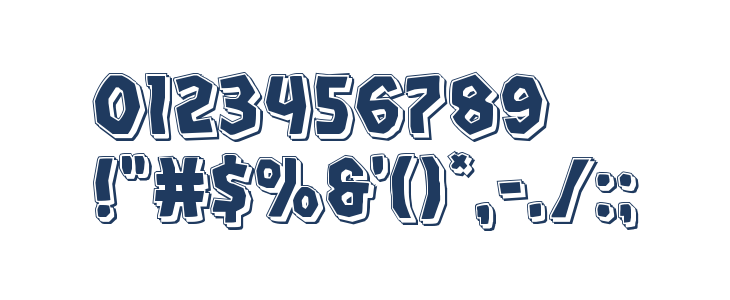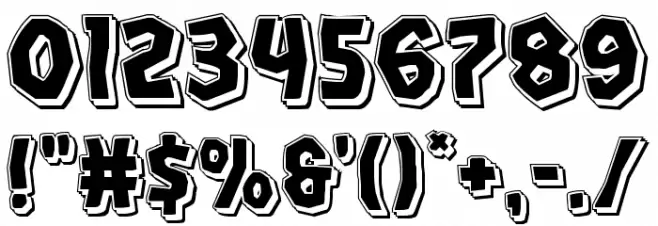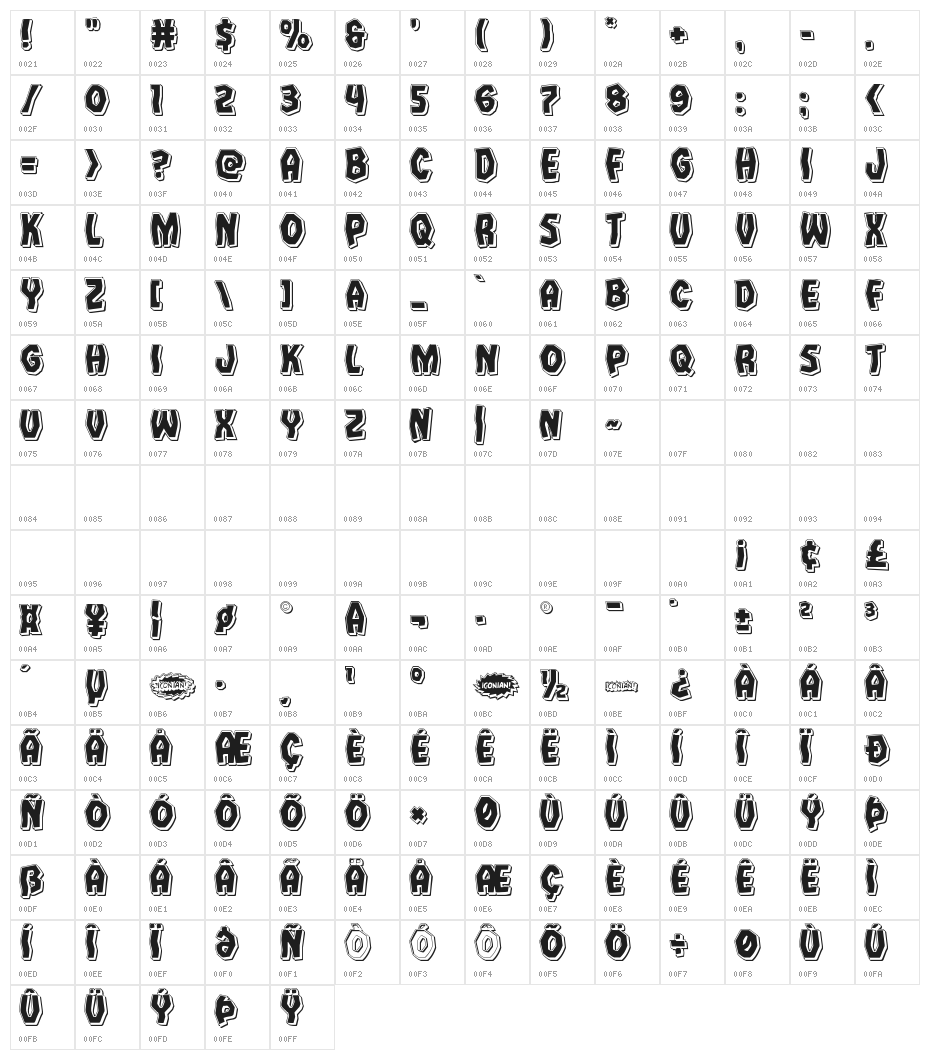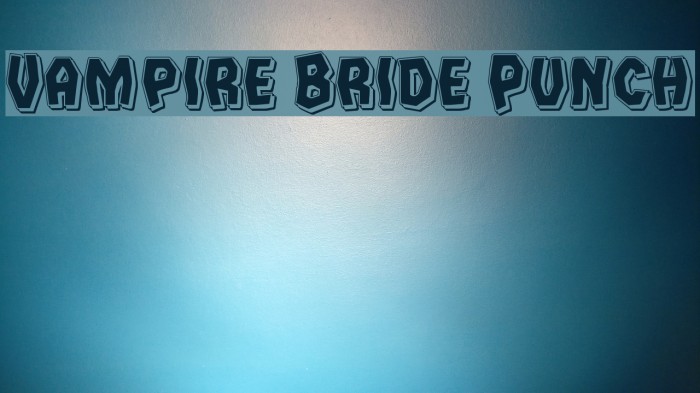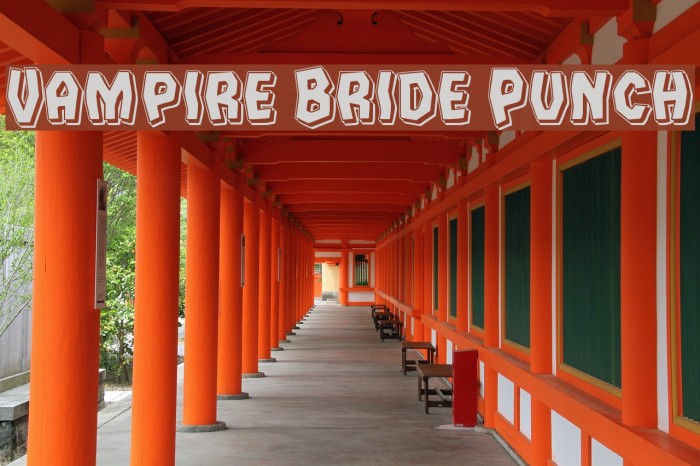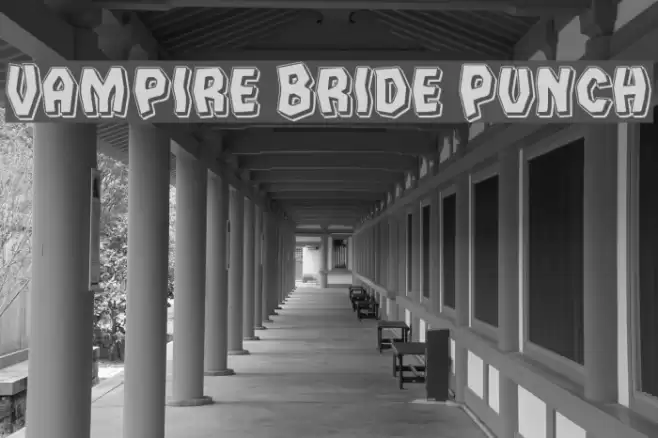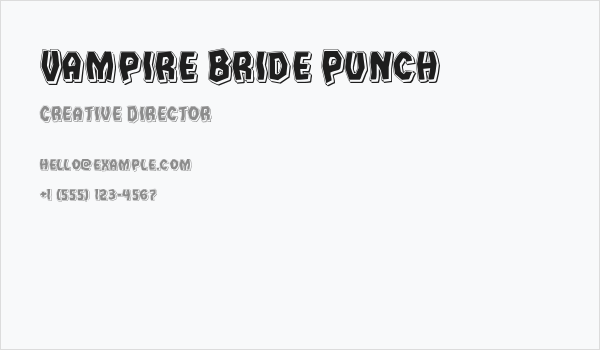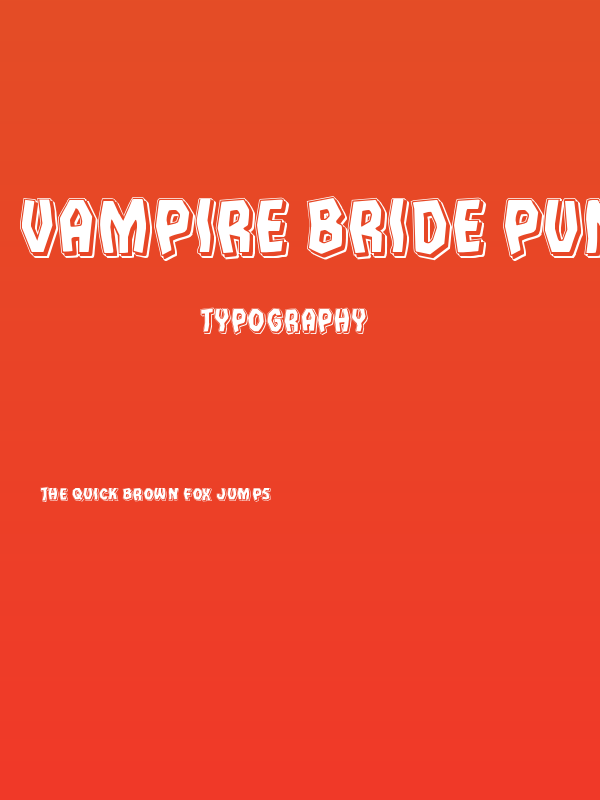
Vampire Bride Punch Font
Vampire Bride Punch Description
This font features bold, three-dimensional characters with a playful and edgy appearance. Each letter is outlined with a thick black shadow, giving it a striking and dynamic look. The characters are slightly irregular, adding a hand-drawn feel that enhances its unique style. The uppercase and lowercase letters maintain a consistent design, while the numbers and special characters complement the overall aesthetic. This font is ideal for creating eye-catching headlines or designs that require a bold statement.